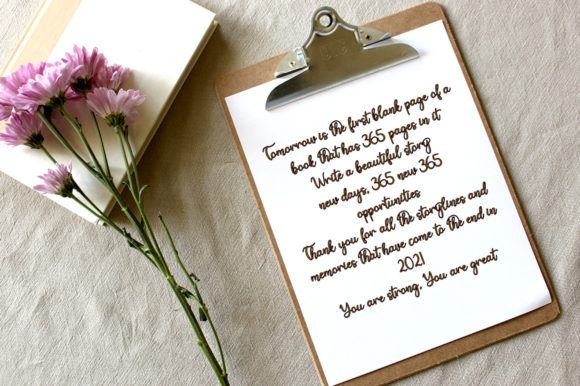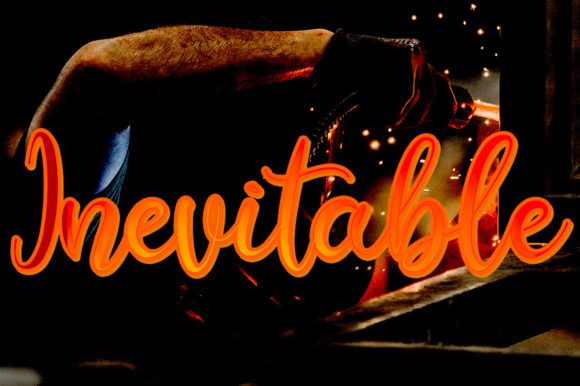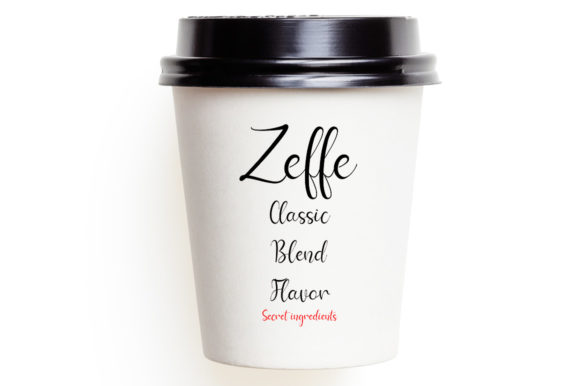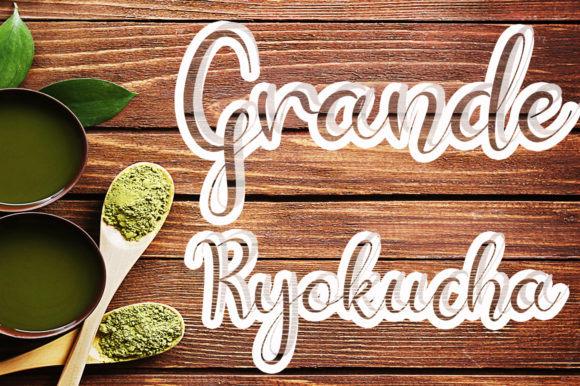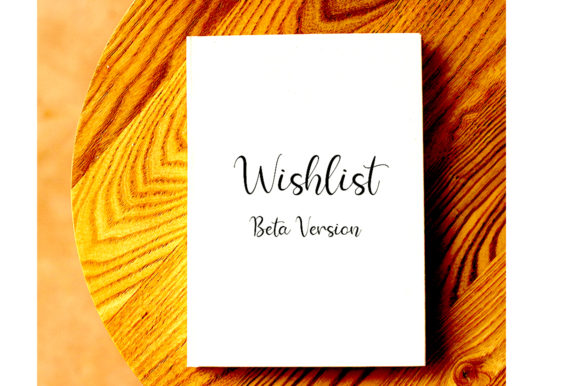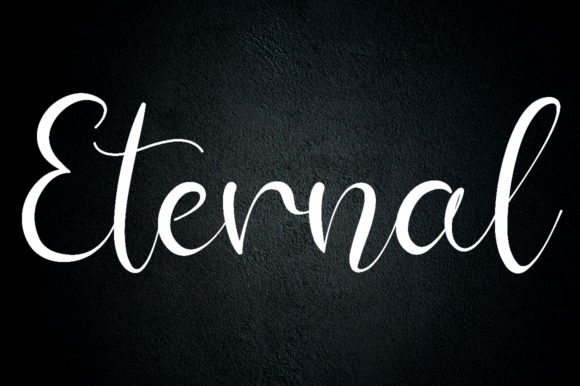
Unlocking the Magic of Eternal Font
Enter the Eternal Font, a beautiful script font designed to add a touch of elegance and charm to any project. Its playful, dance-like characters seem to come alive on the page, making even the most mundane ideas shine. Whether you’re a seasoned pro or just starting out, Eternal Font is a valuable addition to your design toolkit – and a must-have for anyone looking to take their creative projects to the next level.
With its versatility and timeless charm, the Eternal Font is an investment that will pay dividends for years to come.
Eternal Font Key Features
- Font Family: Eternal Font comes in 4 unique styles: Eternal, Eternal Sans, Eternal Script, and Eternal Display.
- Character Set: Eternal Font supports a wide range of languages, including Latin, Cyrillic, Greek, and many others, with over 1000 glyphs in each style.
- Unique Characteristics: The font features a distinctive, modern design with a mix of geometric and organic elements, making it perfect for contemporary branding and design projects.
Eternal Font Review
Overall, I’d say the Eternal Font is a decent addition to any designer’s toolkit. It’s got some great features that make it a solid choice for certain projects.
- Unique aesthetic: The Eternal Font has a distinct, otherworldly feel to it that’s perfect for sci-fi or fantasy projects.
- Highly customizable: The font’s variable design allows for a range of styles and weights, making it easy to tailor to your needs.
- Great for headlines: The font’s bold, eye-catching design makes it perfect for use in headlines and titles.
- May not be suitable for body text: While the font is great for headlines, it may be difficult to read in large blocks of text due to its unique design.
- Lack of consistency: Some users have reported inconsistencies in the font’s rendering across different devices and platforms.
The Eternal Font is a solid choice for designers looking to add some flair to their projects. While it may have some limitations, its unique aesthetic and high customizability make it a great option for the right projects. Just be sure to use it sparingly and in the right context to get the most out of it.
Tips for Getting the Most Out of Eternal Font
To get the most out of Eternal Font, use it for:
- Special occasion invitations and cards
Eternal Font is commonly used for:
- Anniversary and birthday cards
Alternatives to Eternal Font
Playfair Display is a luxurious serif font ideal for high-end branding, luxury goods, and formal invitations. It’s perfect for creating a sense of elegance and sophistication. Compared to Eternal Font, Playfair Display has a more refined and ornate feel, making it suitable for projects that require a touch of luxury.
Merriweather is a classic serif font that works well for body text, headings, and titles. It’s suitable for publications, blogs, and websites that require a timeless and traditional look. Compared to Eternal Font, Merriweather has a more conservative and traditional feel, making it a great choice for projects that need a sense of stability.
Carolyna Pro is a modern serif font that combines elegance and sophistication with a touch of whimsy. It’s perfect for branding, advertising, and editorial design. Compared to Eternal Font, Carolyna Pro has a more contemporary and dynamic feel, making it suitable for projects that require a sense of creativity and innovation.